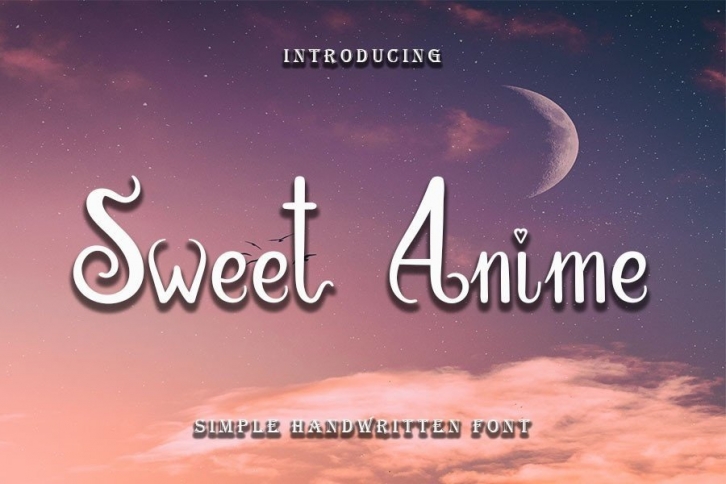
Sweet Anime is a slim and delicate handwritten font. Dainty and joyful, this font will be ideal for writing wedding invitations, cards, or any other design that may need a romantic, personalized touch!